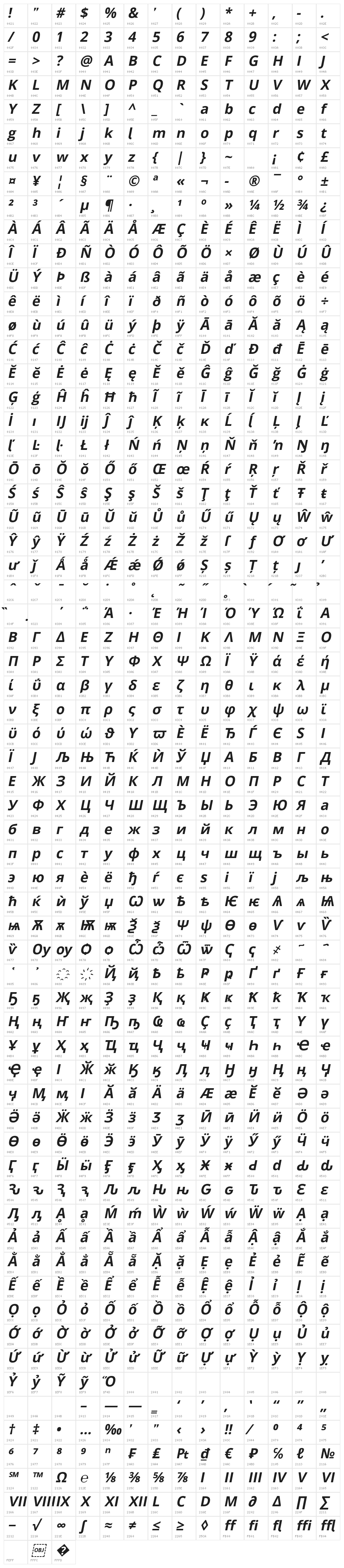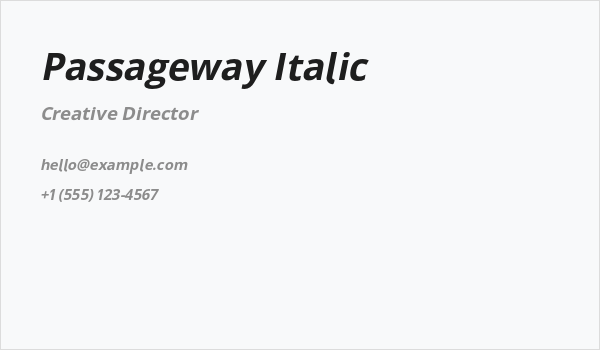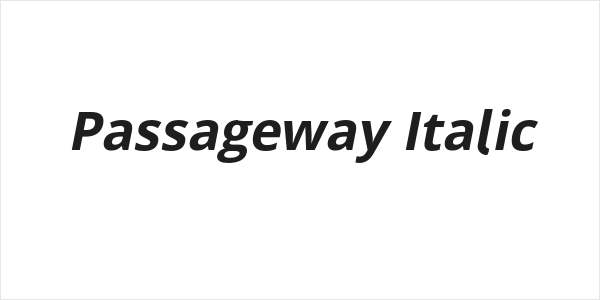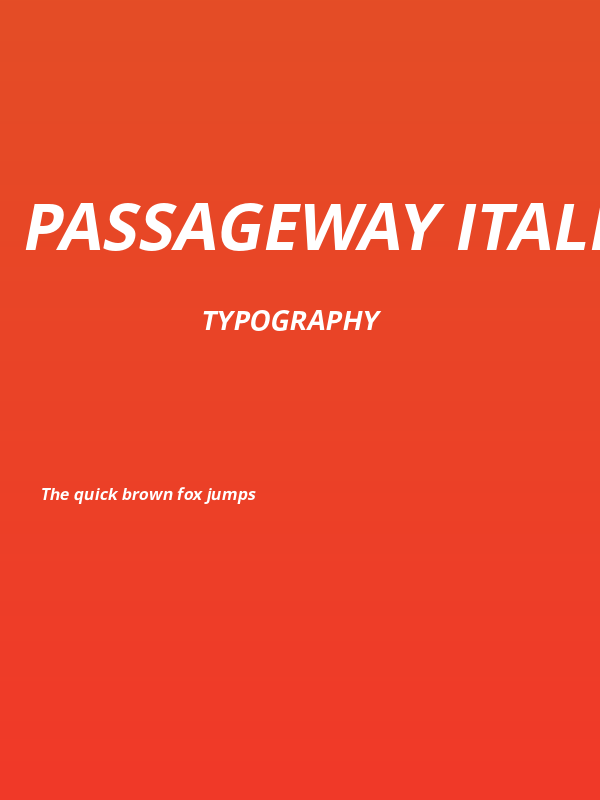
Passageway Italic Font
Passageway Italic Description
This font features a sleek, italicized style with a modern and dynamic appearance. The characters are slightly slanted, giving a sense of motion and fluidity. The strokes are consistent in thickness, providing a uniform and clean look. The uppercase letters are bold and assertive, while the lowercase letters maintain a balanced and approachable feel. The numbers are clear and easy to read, with a slight tilt that matches the overall italic style. Special characters are well-designed, fitting seamlessly with the rest of the font. This font is versatile, suitable for various design needs.
| Use Case | Headlines, Logos, Advertising |
| Proposed Projects | Ideal for branding, advertising, and editorial design projects that require a modern and stylish touch. |